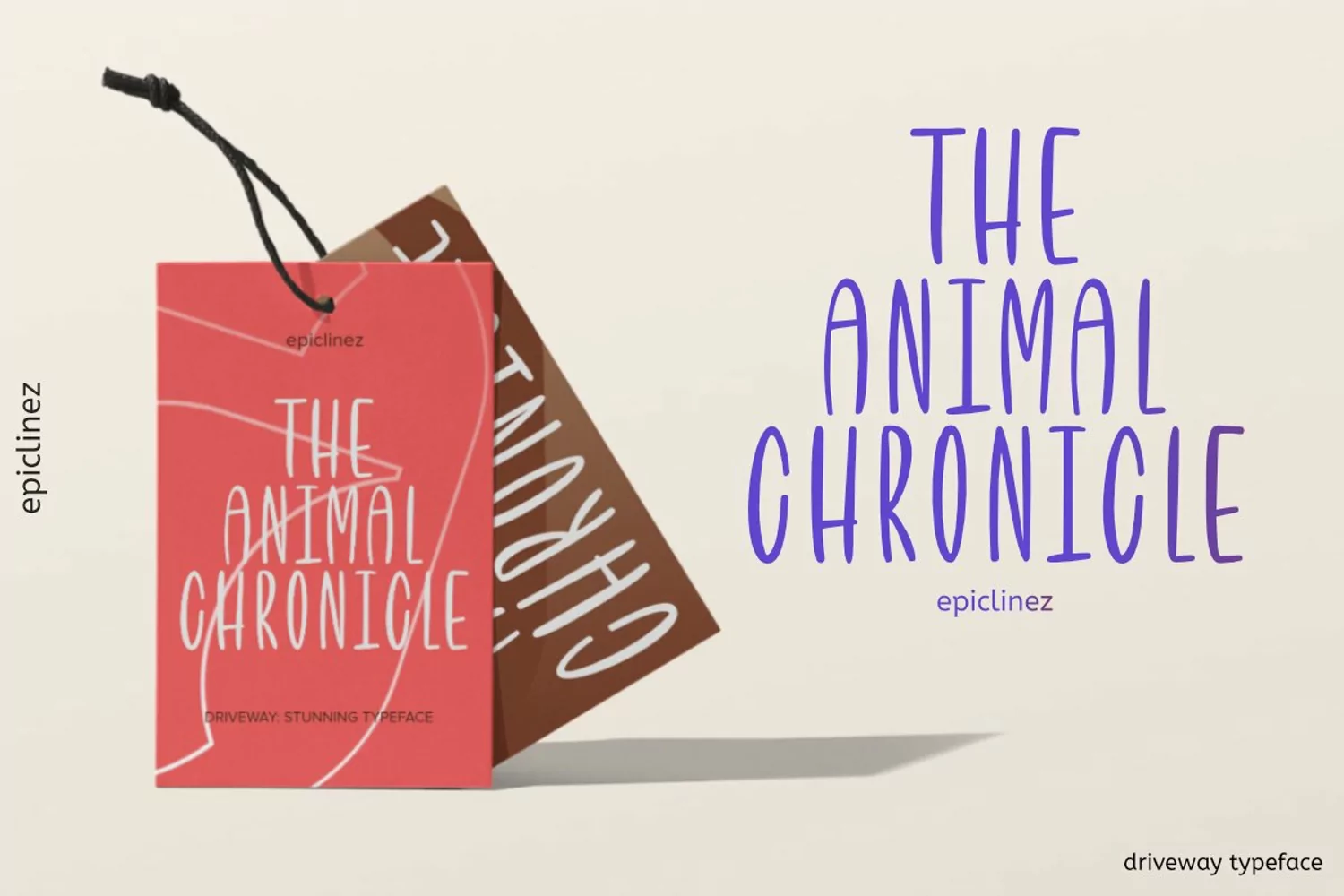
Driveway is a casual handwritten font. It's easy to read and it has a playful feel to it at the same time. Get Inspired by its simplistic charm and use it to brighten up any creative projects
Driveway